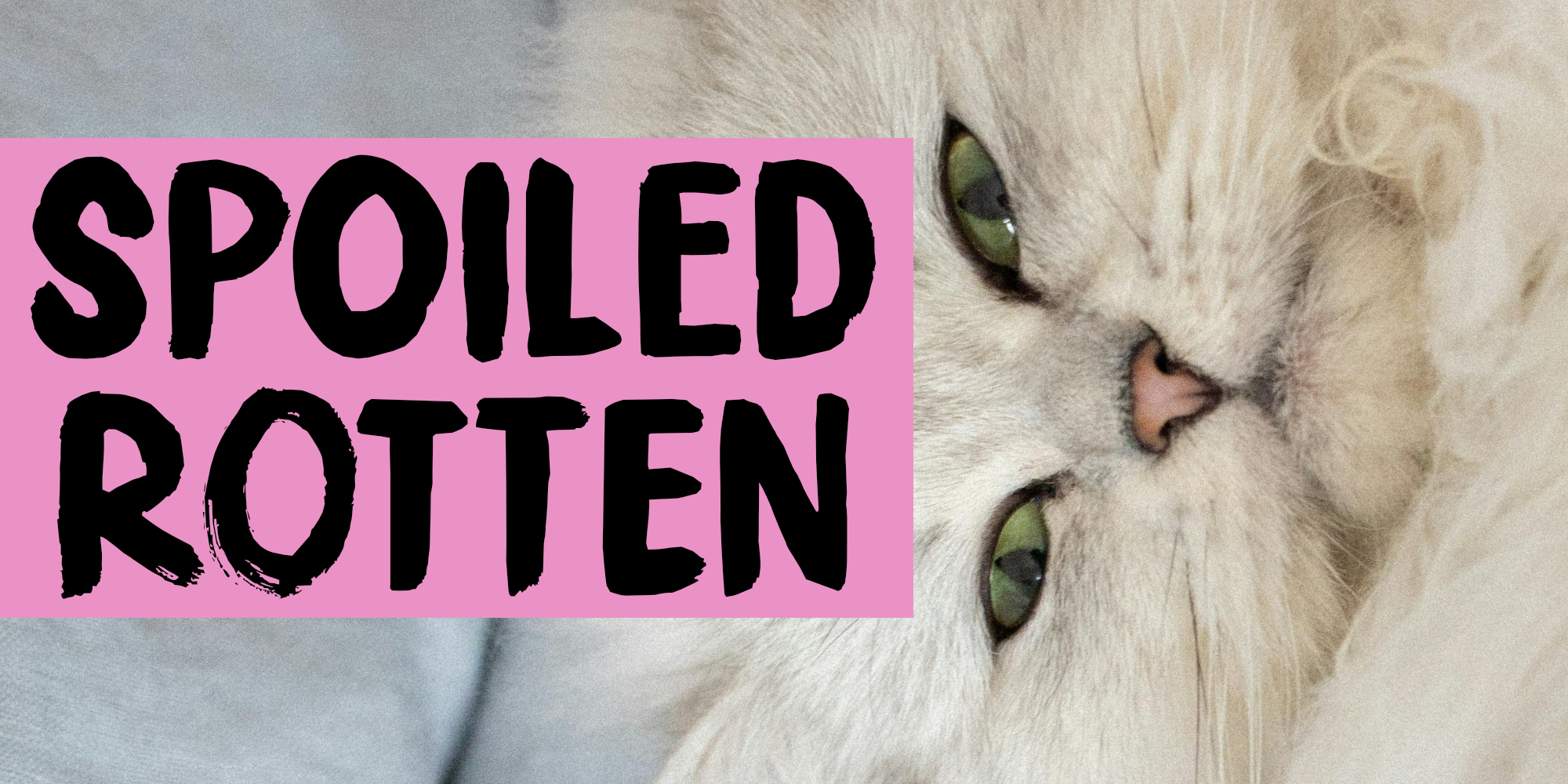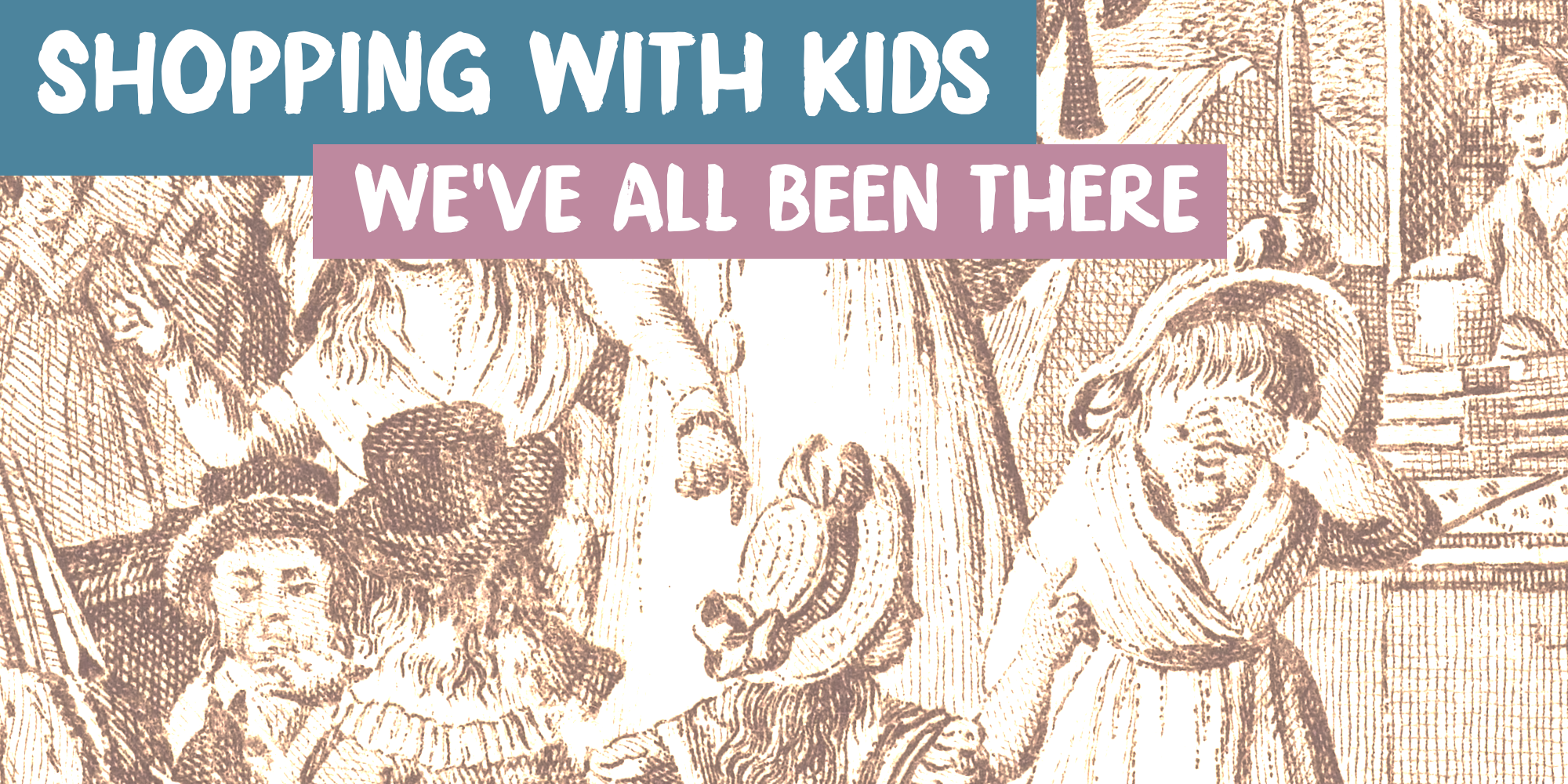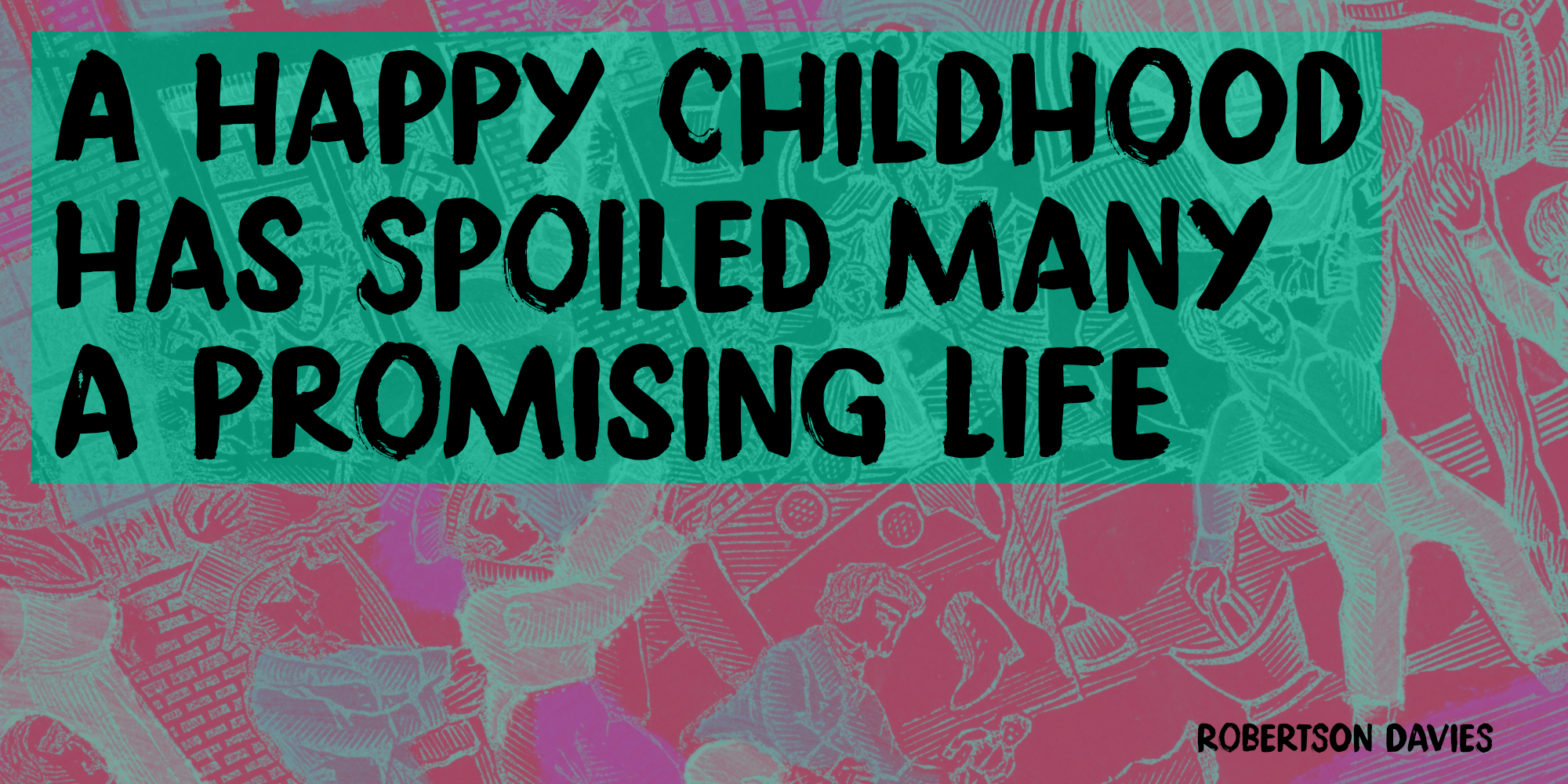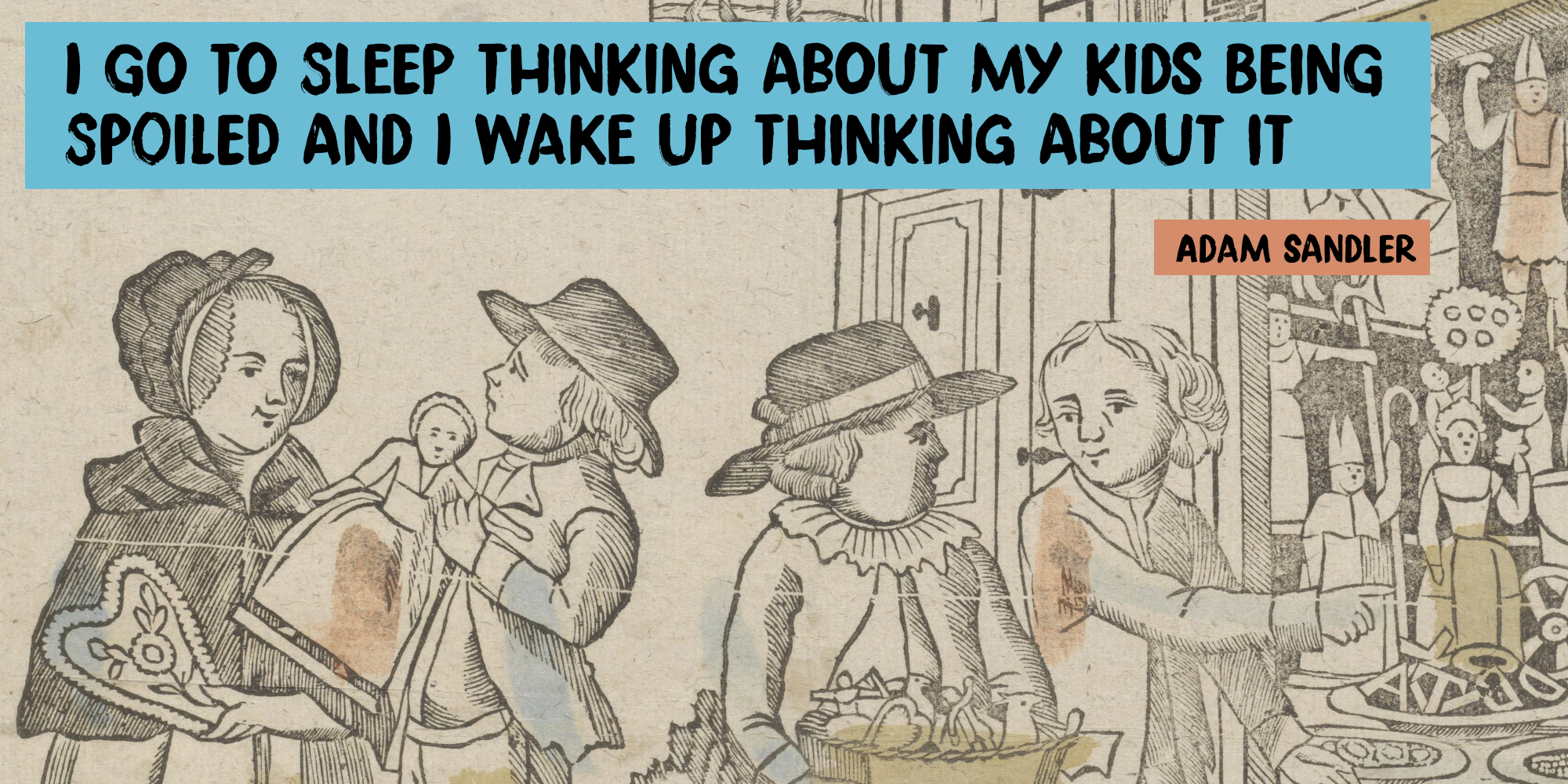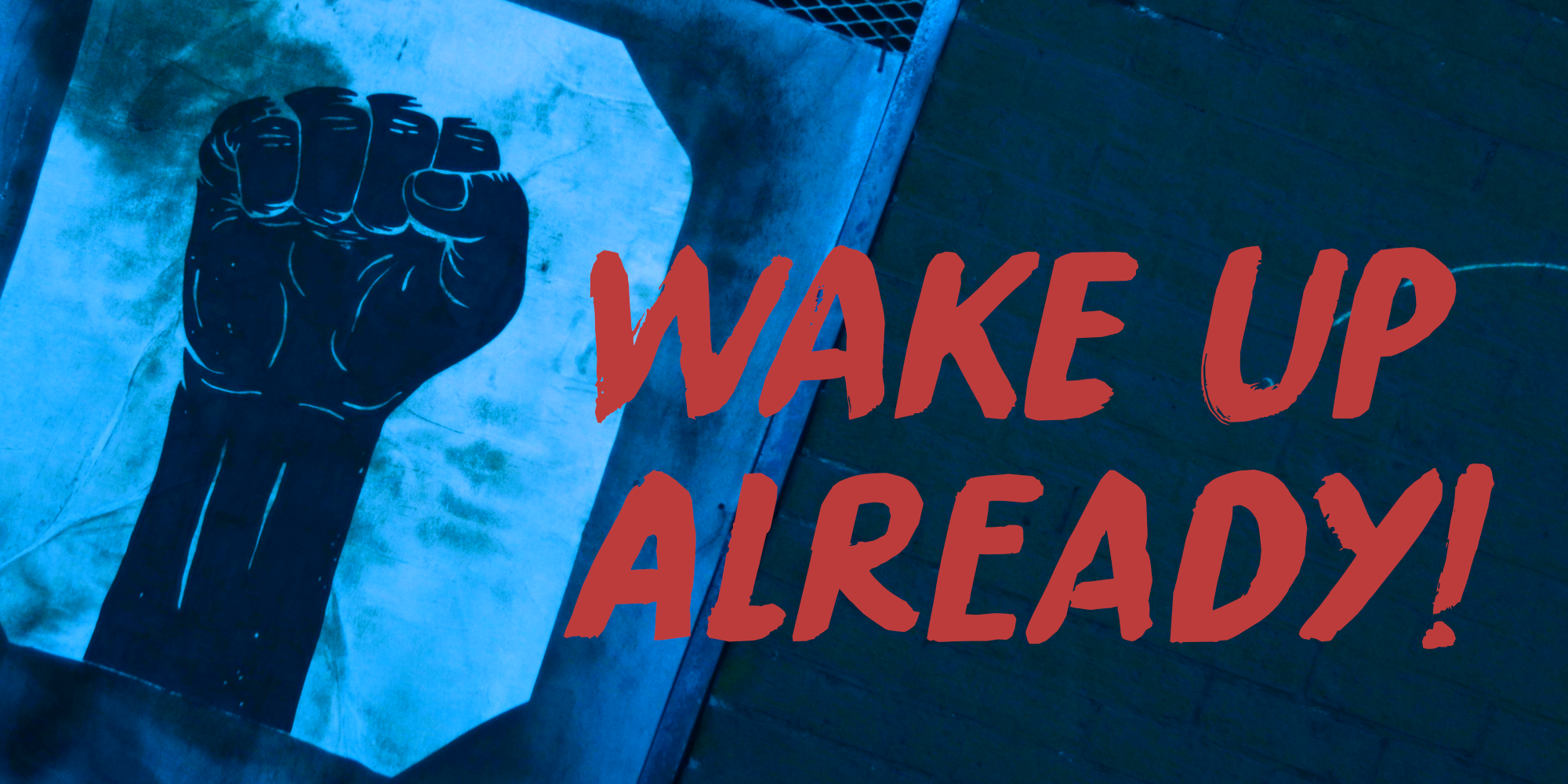
Spoiled Rotten (2 fonts)
Spoiled Rotten was made with ink and a brush and even though it looks rough, its uses can be manifold. Book covers? You bet! Instantly recognisable packaging? Right on! Loud public posters? No problem! Spoiled Rotten also comes with extensive language support and a gorgeous set of alternates for the lower case glyphs that cycles as you type.